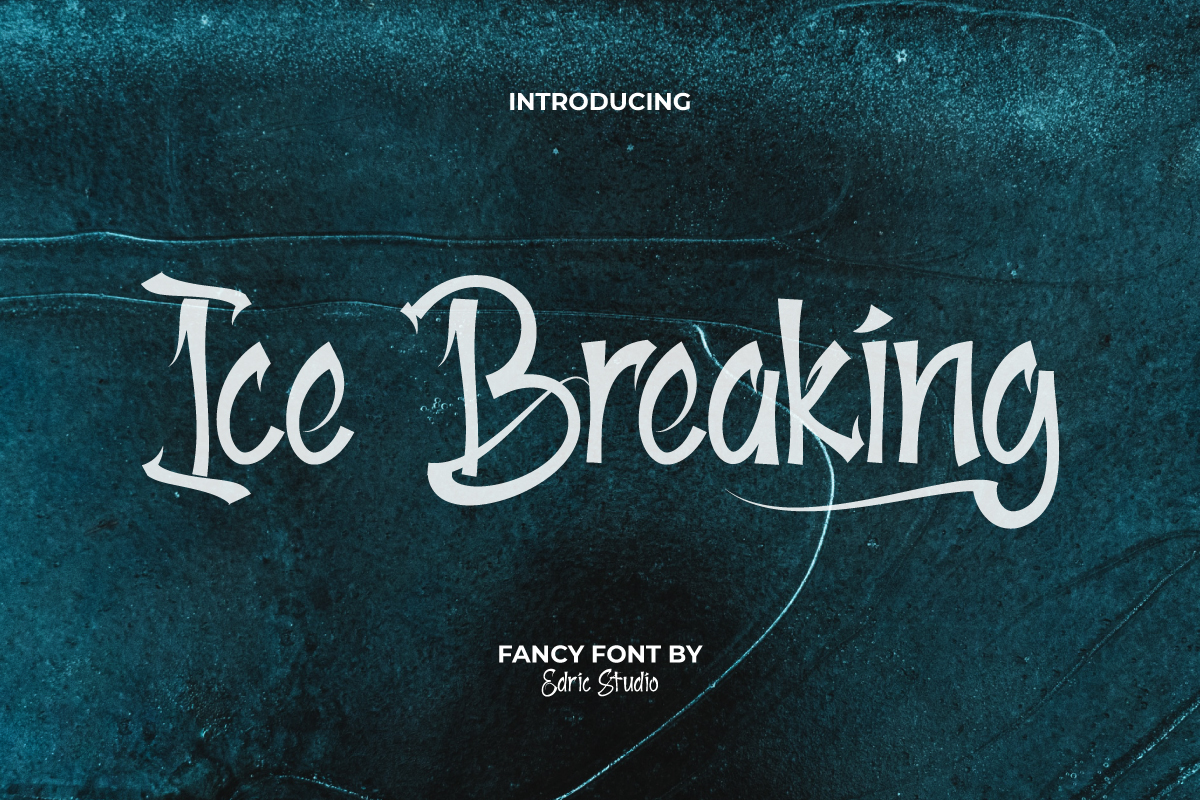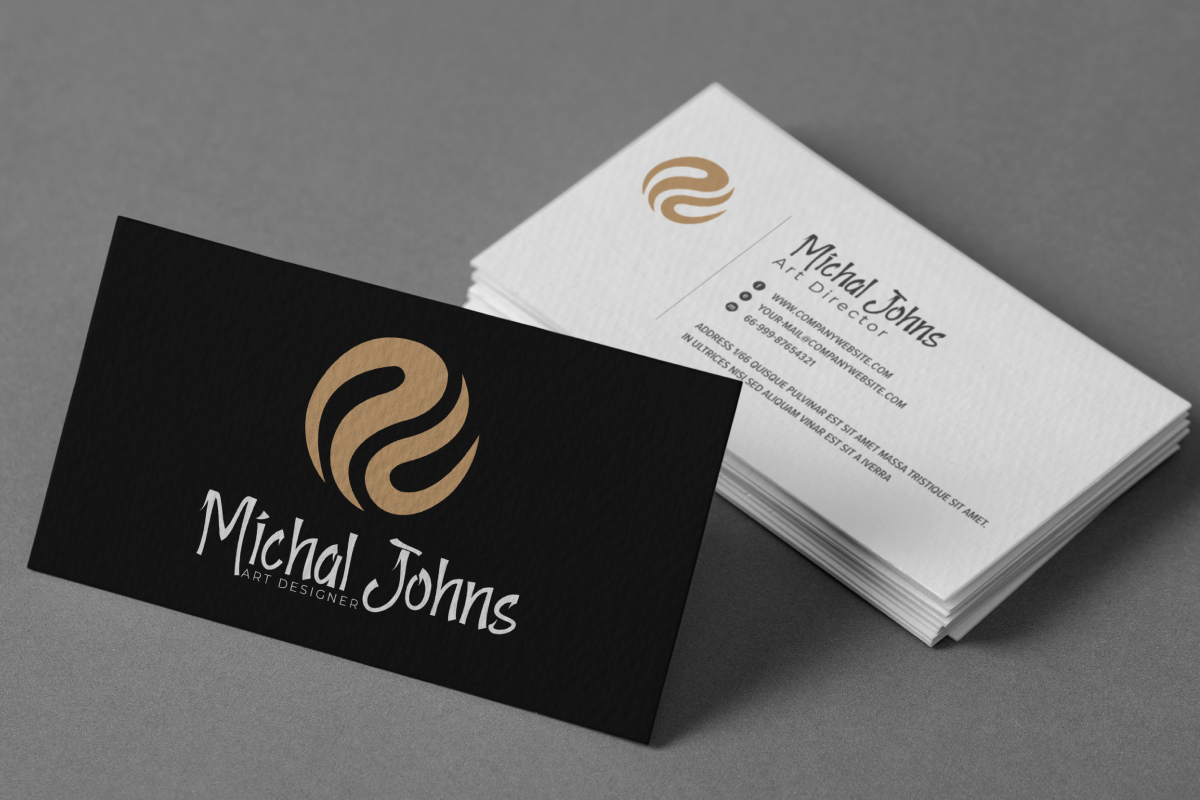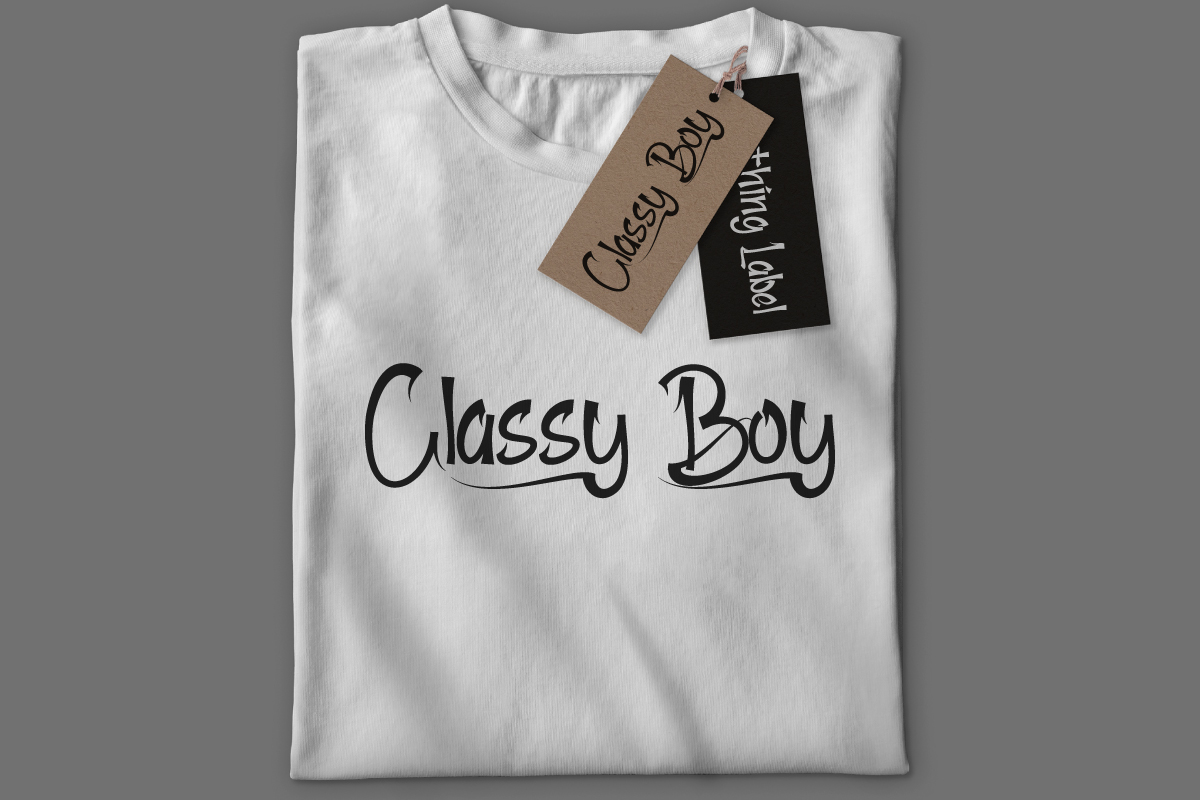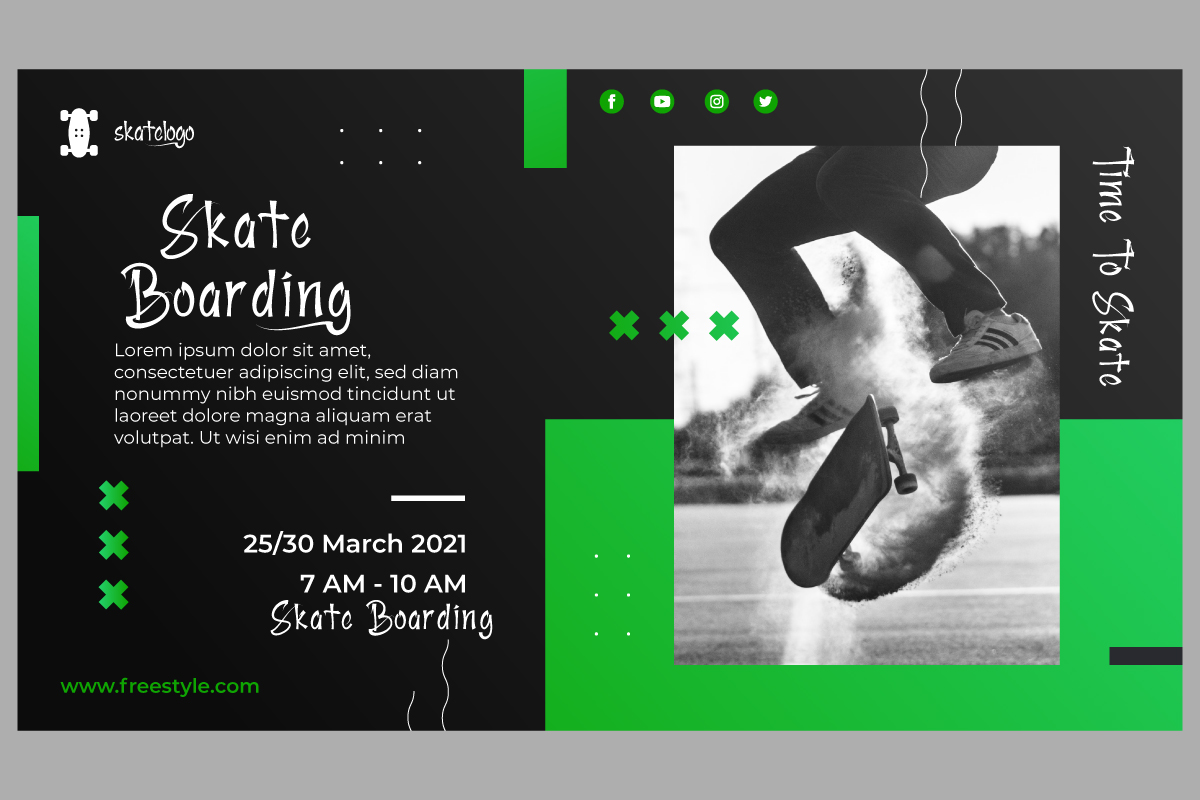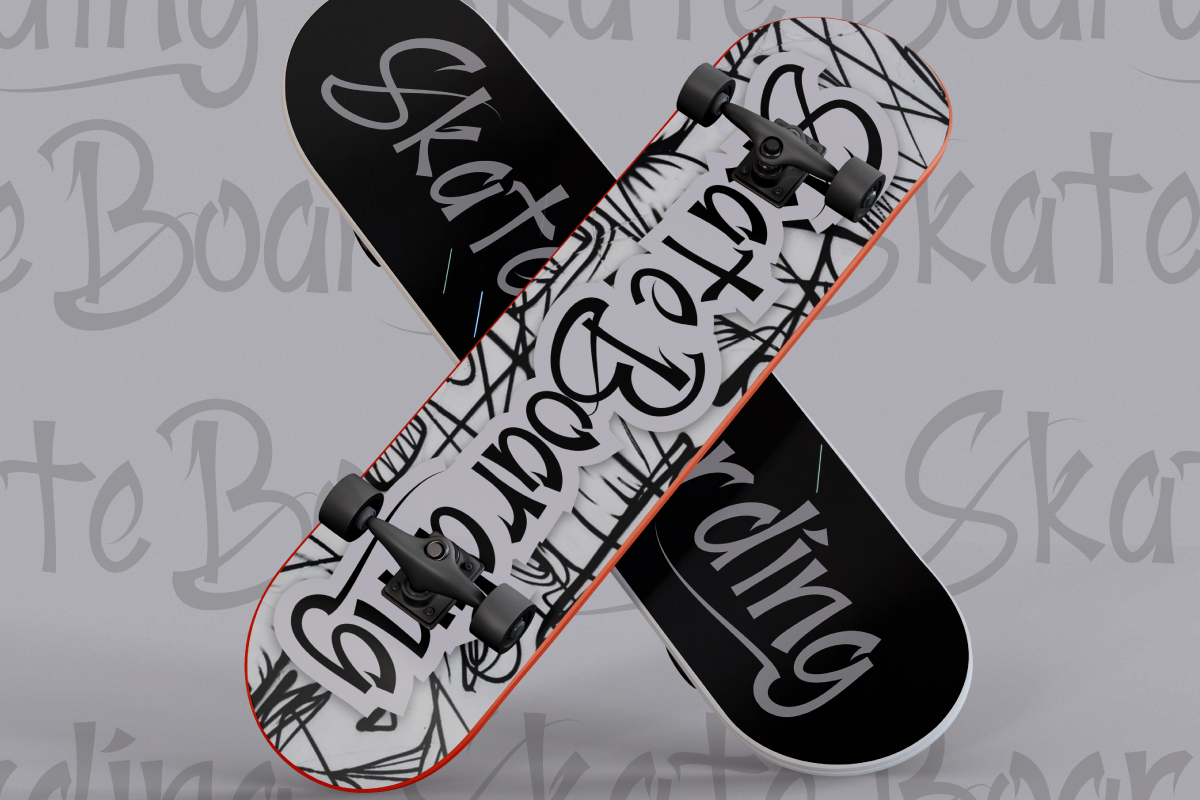
Ice Breaking Font
Ice Breaking Brush Font
This is a brush display font with unique style. This font has a stunning characters set, perfectly managed with well spaced and kerning. The theme style of this font will horror, movie, games, vintage and classic brush style. This is a grunge brush display font, handcrafted specially for you to standout the crowd.
Ice Breaking Brush Font will be great for any projects including : brandings, signage, flyer, brochure etc. Almost all industries will be match for this typeface: events, comic, makeup artist, travel, cartoon, musician, magician etc